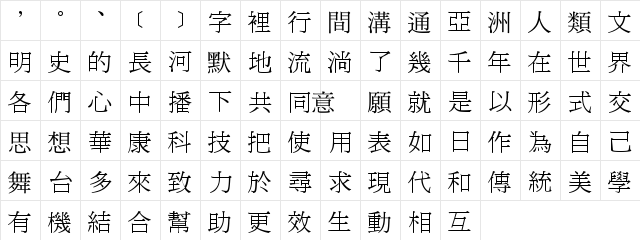
DFMingMedium1B Regular
Design Context for DFMingMedium1B Typeface
DFMingMedium1B offers clean, dependable letterforms without strong stylistic allegiance, making it a practical choice for designers who need flexibility.